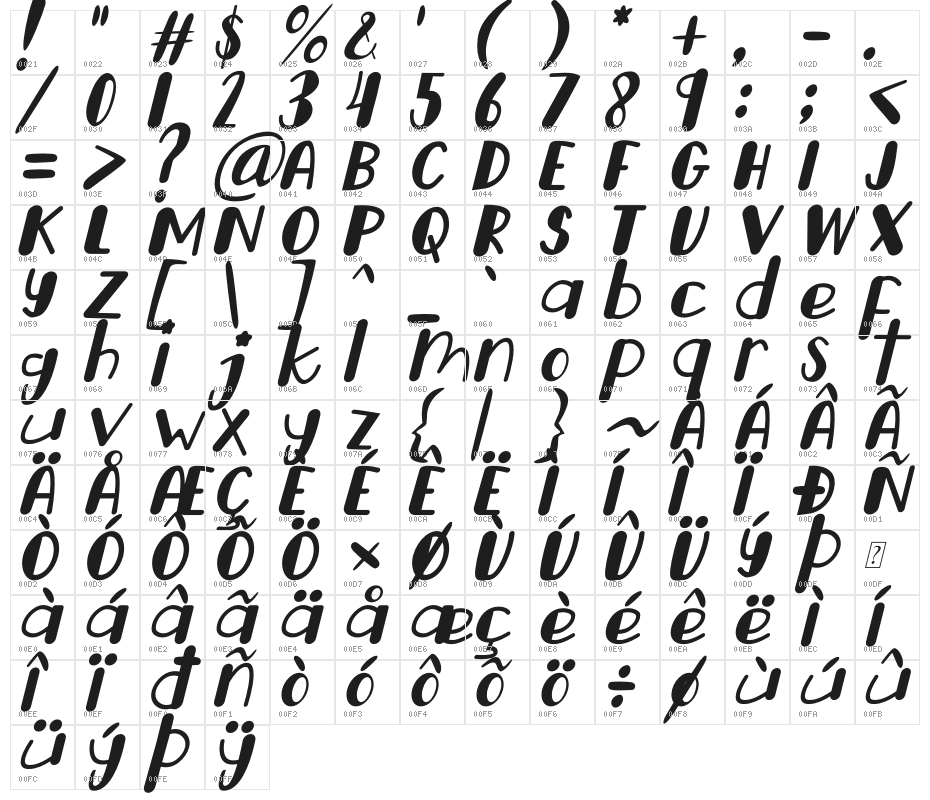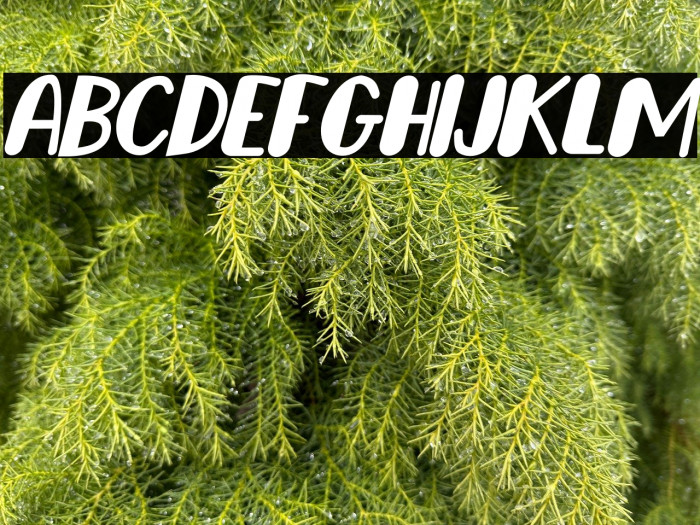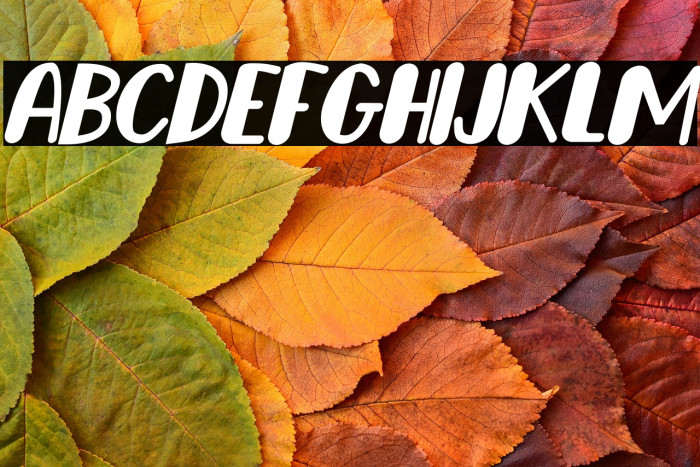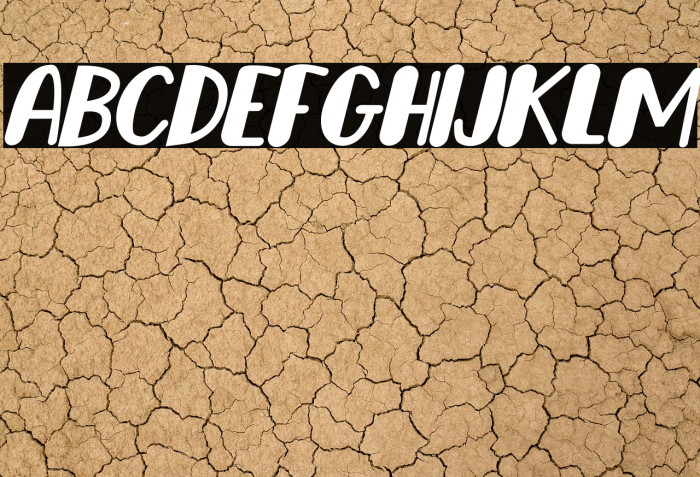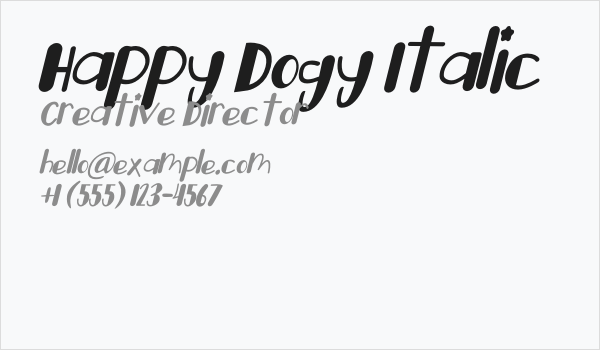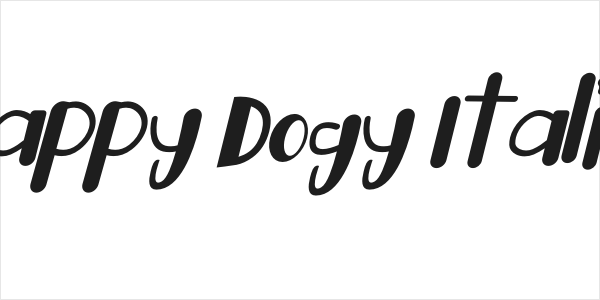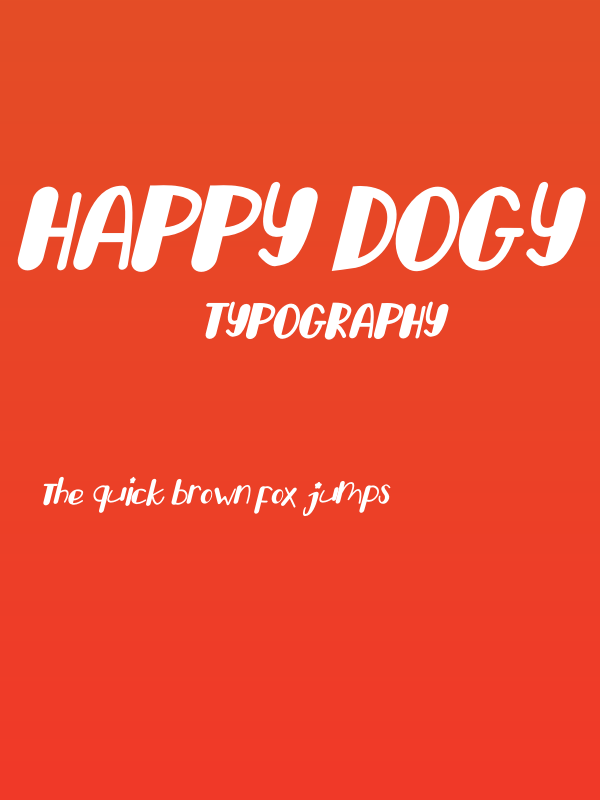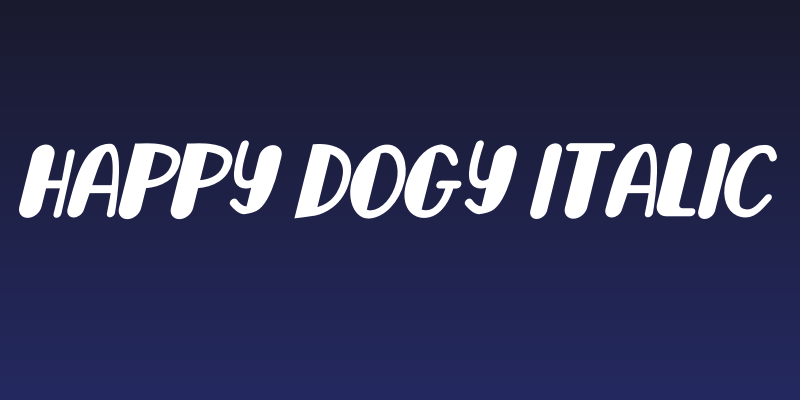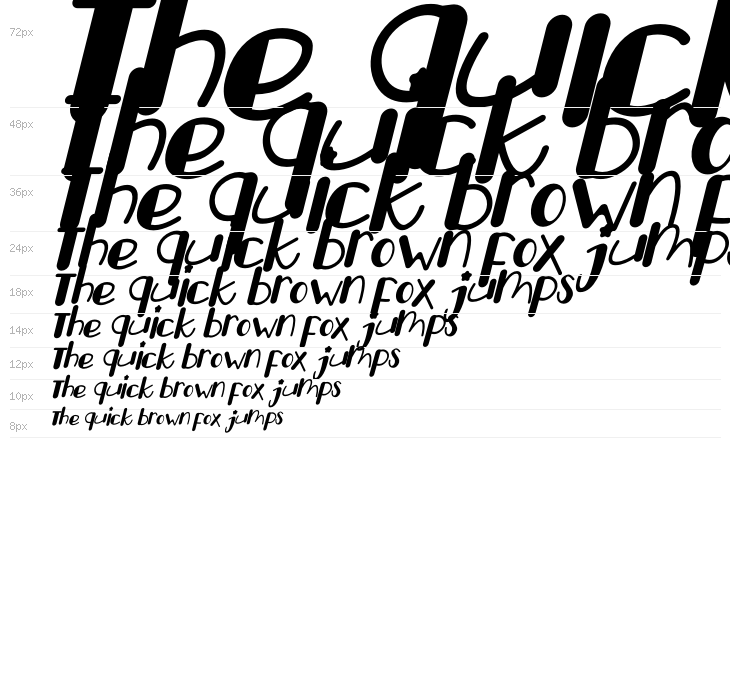
Happy Dogy Italic Font
Happy Dogy Italic Description
This playful and dynamic font features a bold and italicized style with a handwritten flair. The letters are characterized by smooth, flowing curves and a slightly slanted orientation, giving it a lively and energetic appearance. The uppercase and lowercase letters maintain a consistent style, with rounded edges and a uniform thickness that adds to its friendly and approachable feel. The numerals and special characters are equally expressive, with distinctive shapes that complement the overall aesthetic. This font is perfect for projects that require a fun and informal touch.
| Proposed Projects | Ideal for children's books, playful branding, greeting cards, and creative posters. |